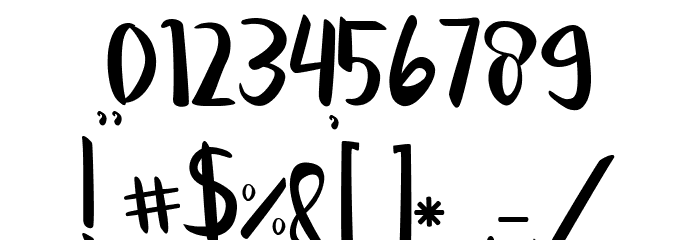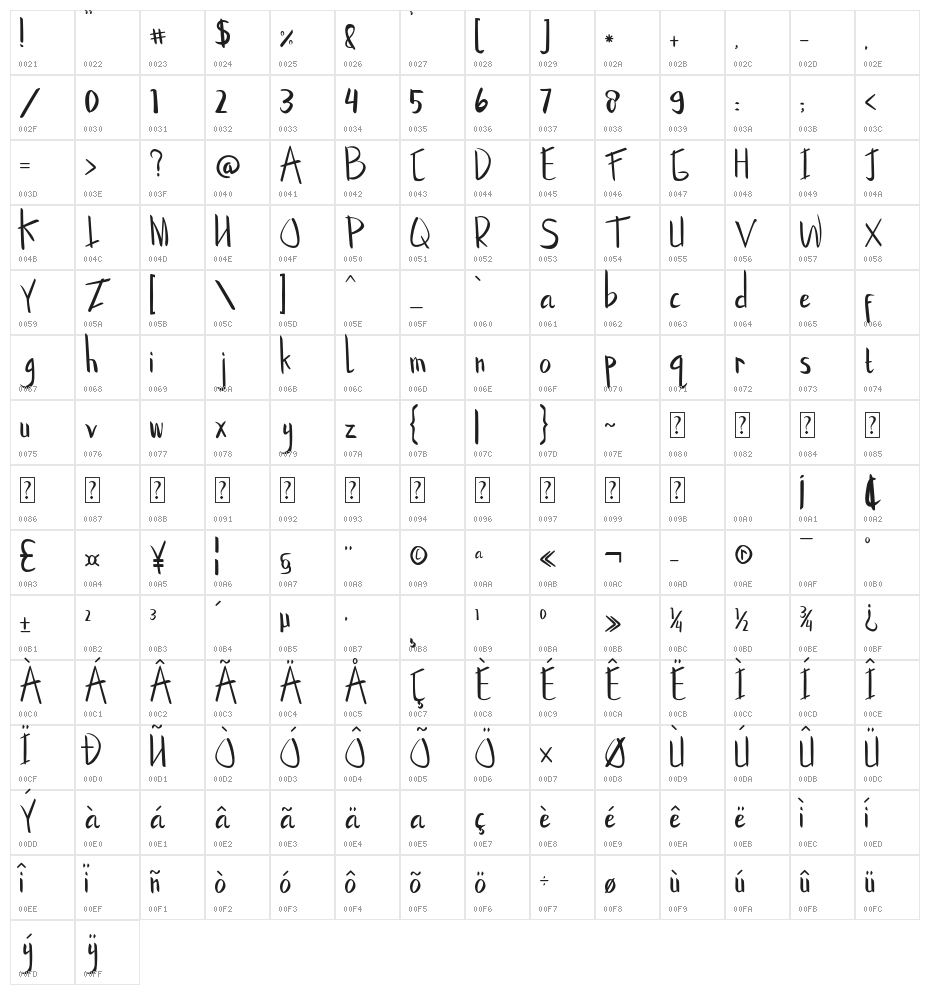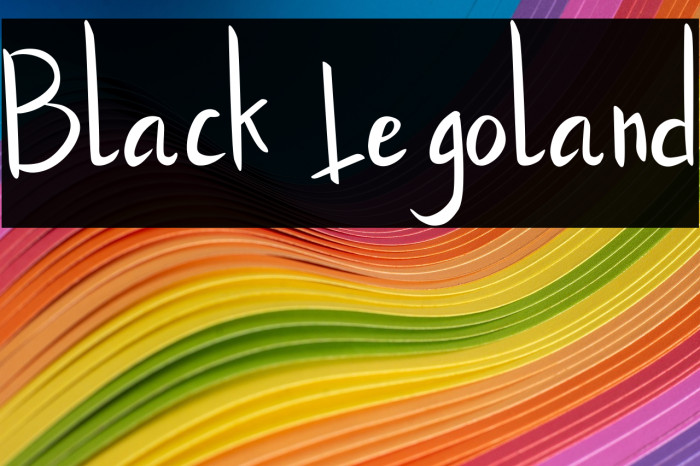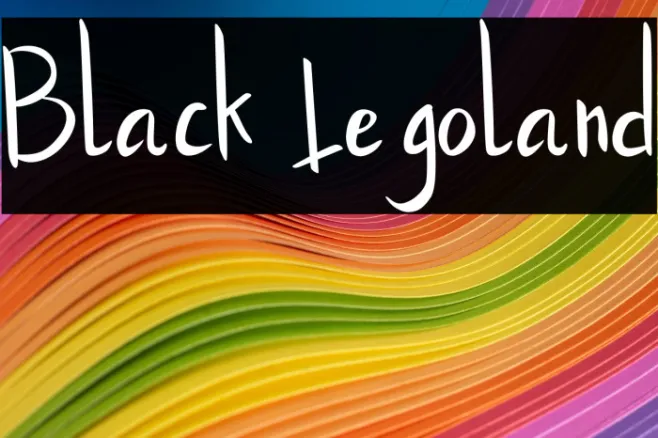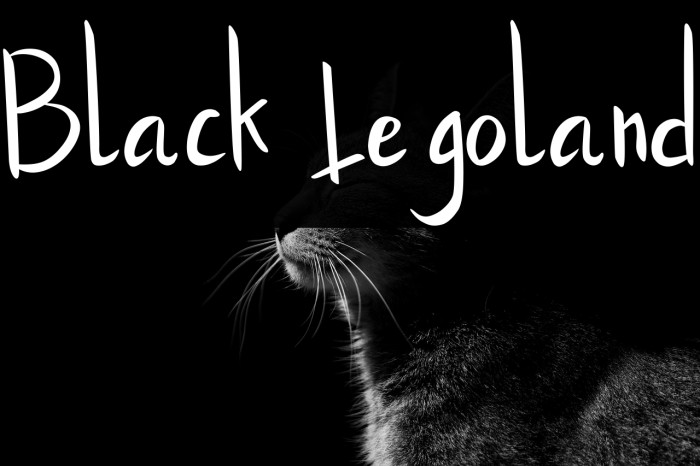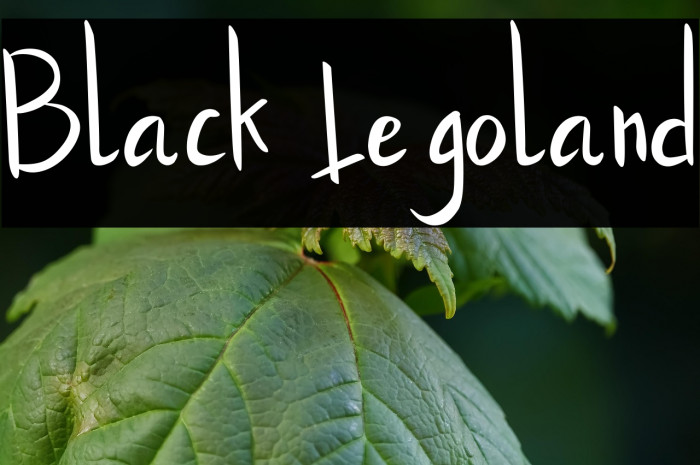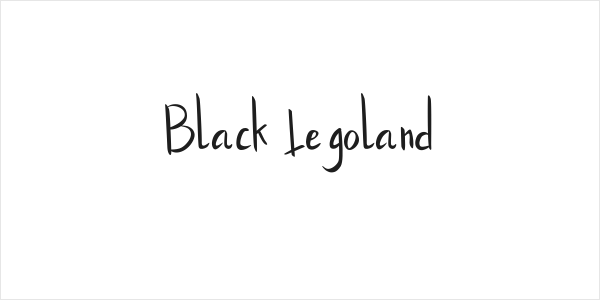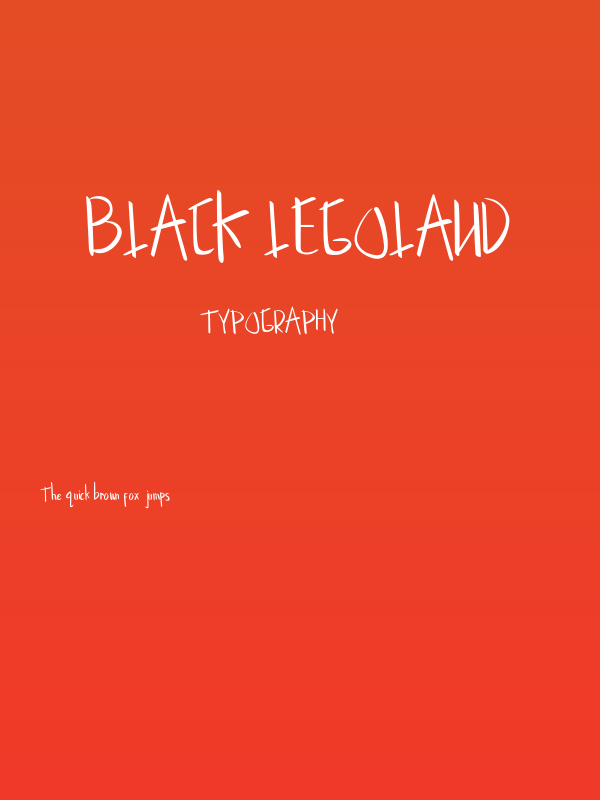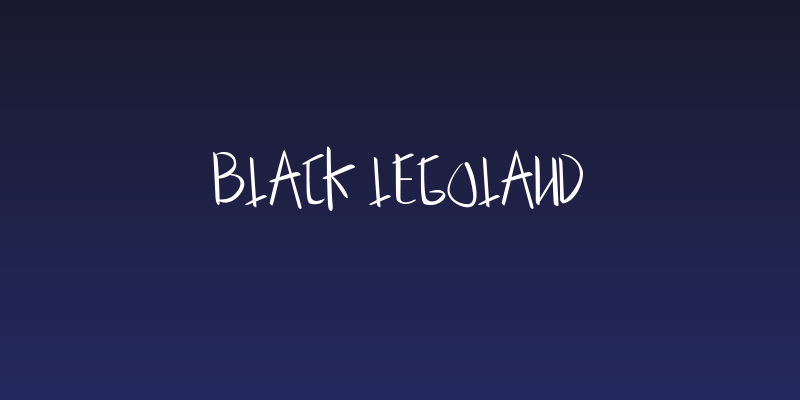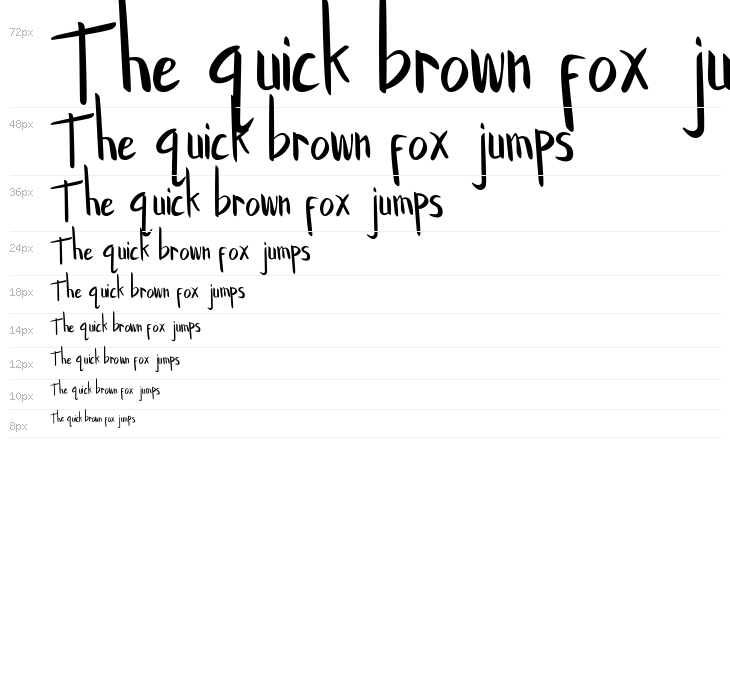
Black Legoland Font
Black Legoland Description
This font features a playful and informal handwritten style, characterized by its uneven strokes and casual appearance. The letters have a slightly irregular baseline, adding to the whimsical and dynamic feel of the typeface. The uppercase letters are tall and narrow, while the lowercase letters maintain a consistent height with rounded edges. Numbers and special characters follow the same playful aesthetic, making the font suitable for creative and informal projects. Its unique style is perfect for capturing attention and conveying a sense of fun and spontaneity.
| Proposed Projects | Ideal for children's books, playful branding, casual invitations, and creative posters. |